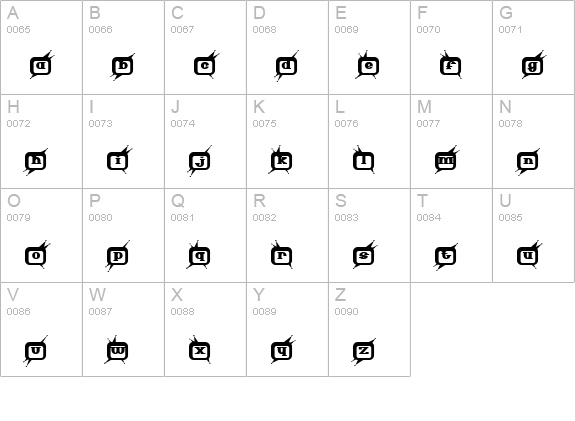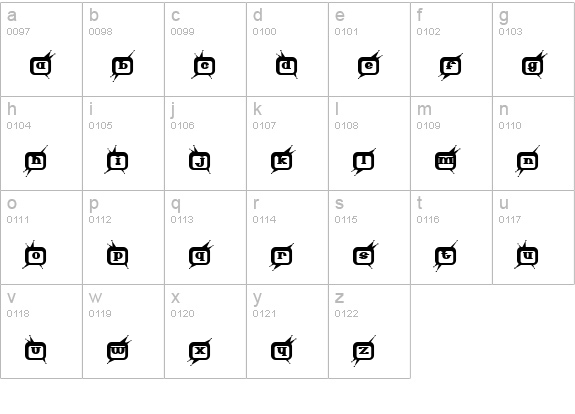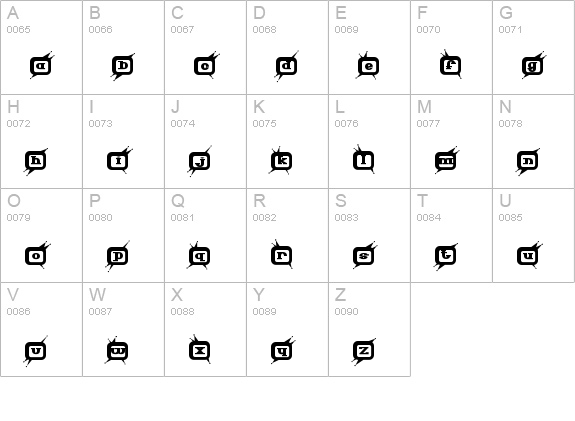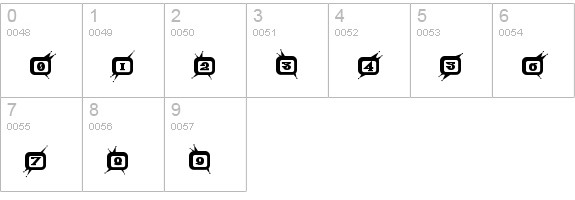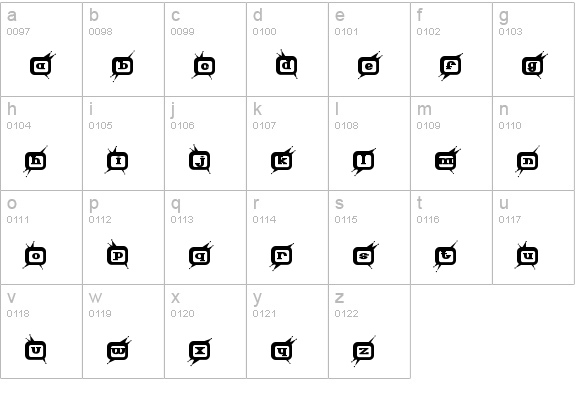
Technicolor Font Details
Technicolor font is a visually captivating typeface that brings a vibrant and energetic touch to any design project. With its bold and dynamic letterforms, this font is perfect for adding a splash of color and excitement to posters, logos, and branding materials. The Technicolor font is a true testament to the power of creativity and innovation. Its unique design blends modern aesthetics with a nod to retro styles, creating a timeless and versatile font that can be used for both contemporary and vintage-inspired designs. One of the most remarkable aspects of Technicolor font is that it is freely available for download at FontsMarket.com. This means that designers and creatives from all walks of life can access and utilize this stunning typeface without any cost. Whether you are a professional designer or a hobbyist, the availability of Technicolor font for free allows you to experiment and explore your creative boundaries without any limitations. With its extensive character set and multiple weights, Technicolor font offers endless possibilities for customization. From vibrant and playful compositions to sleek and modern designs, this font can adapt to any style or concept you have in mind. Its versatility and visual impact make it a valuable asset in any designer's toolkit. The Technicolor font is not just a typeface; it is a statement. It is a celebration of boldness, imagination, and the power of colors. By incorporating this font into your projects, you are sure to create eye-catching and memorable designs that will captivate and engage your audience. So, why wait? Take advantage of the opportunity to download Technicolor font for free at FontsMarket.com and bring your designs to life with its captivating and energetic aesthetic. Unleash your creativity and let Technicolor font shine in all its colorful glory.